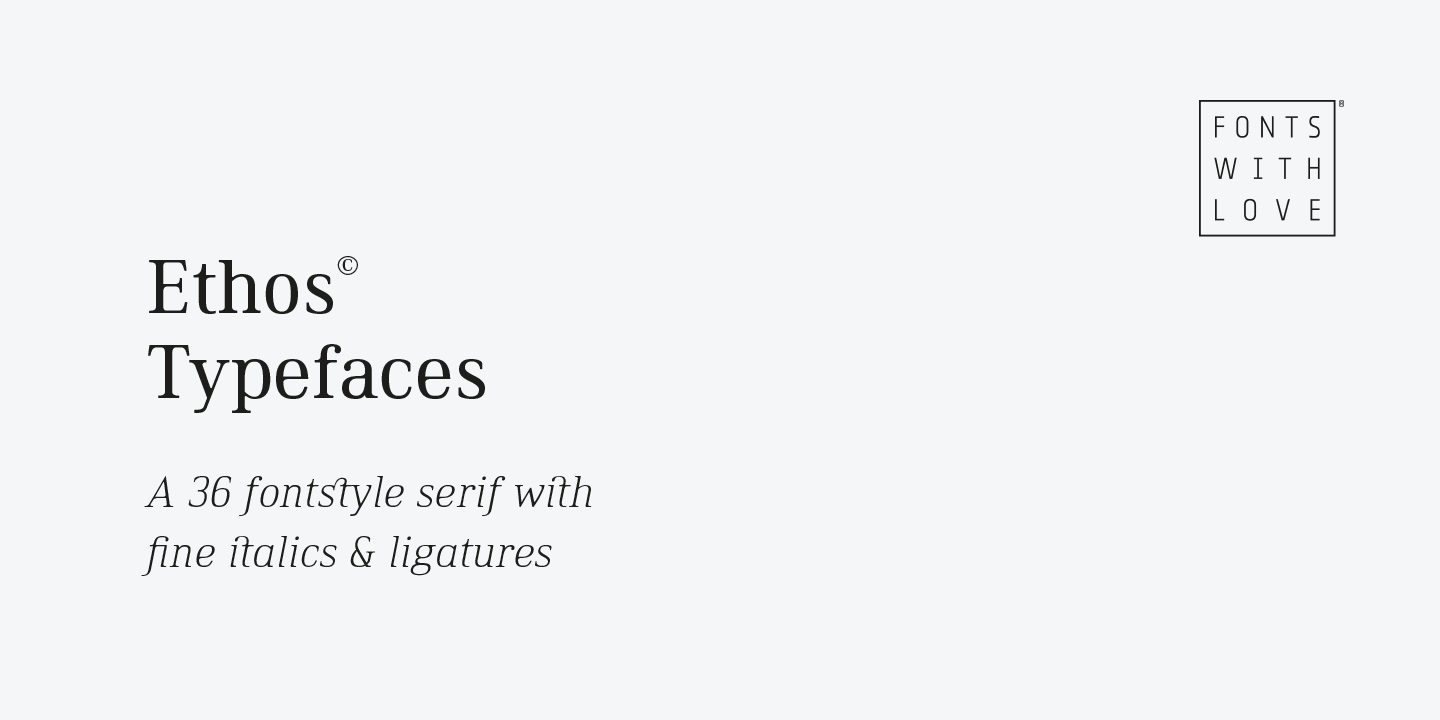
Ethos is a serif font family. This typeface has thirty-six styles and was published by Fonts with Love.
Ethos is a contemporary serif font family by Fonts With Love. It comes in 36 fontstyles with true italics and a huge bunch of opentype features like small caps, ligatures, nominators and denominators, fractions and many more.
Its x-height is pretty high, which makes it legible even on small font sizes. Above that, the lighter weights have a rather low-contrast linestyle, which improves the legibility on display application especially on smaller sizes. On larger font sizes, the typeface stands out with a distinctive character of geometrically shaped letters with soft rounded corners.
Each fontface contains 500+ glyphs, supporting a huge amount of languages, mathematical operators, symbols and punctuation.